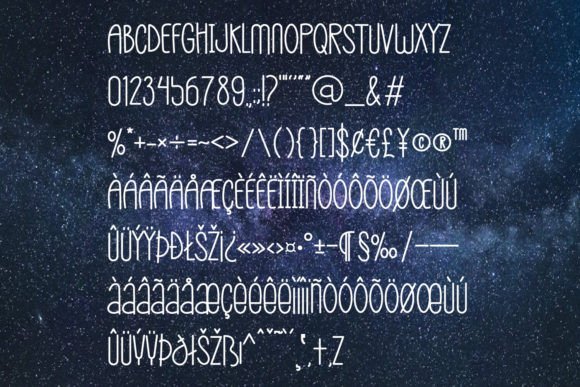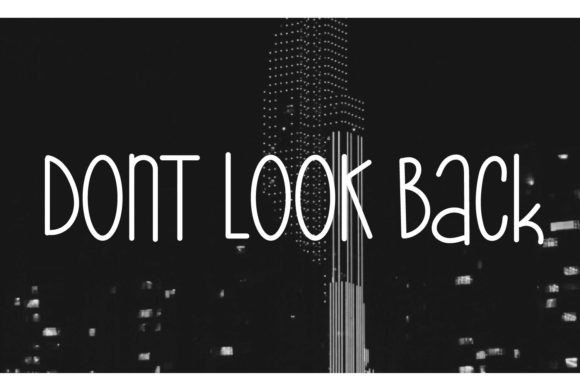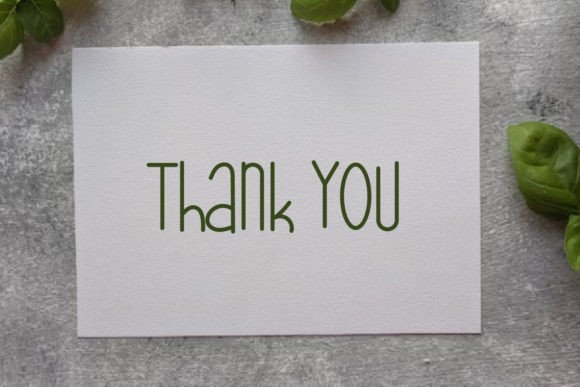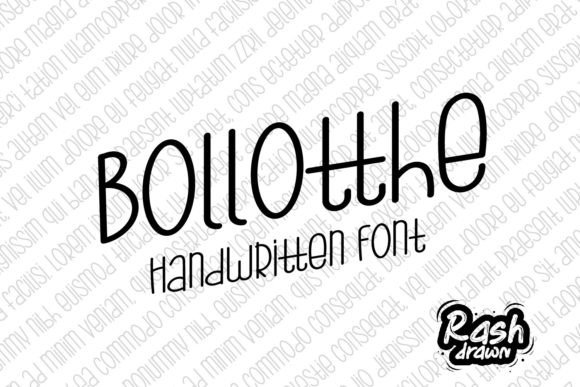
Bollotthe Font: The Ultimate Modern Sans-Serif Font for Designers and Crafters
Bollotthe font is a game-changer in the world of typography. This cool and modern sans-serif font has been gaining popularity among designers, crafters, and digital artists, and for good reason. Whether you’re working on a craft project, creating digital designs, making presentations, or designing greeting cards, Bollotthe font has the potential to become your new favorite go-to font, no matter the occasion.
What Makes Bollotthe Font So Special?
Bollotthe font boasts a unique and modern design that sets it apart from other sans-serif fonts. Its clean lines, simple shapes, and elegant curves make it a versatile font that can be used in a wide range of applications. The font’s modern aesthetic makes it perfect for designers and crafters who want to add a touch of sophistication and style to their work.
Key Features of Bollotthe Font
- Modern sans-serif design: Bollotthe font features a sleek and contemporary sans-serif design that is perfect for digital designs, presentations, and crafts.
- Clean lines and simple shapes: The font’s clean lines and simple shapes make it easy to read and versatile for use in various applications.
- Elegant curves: The font’s elegant curves add a touch of sophistication and style to any design.
- High-quality: Bollotthe font is a high-quality font that is designed to produce crisp and clear results, even at small sizes.
Uses for Bollotthe Font
Bollotthe font is an incredibly versatile font that can be used in a wide range of applications, including:
- Crafts: Use Bollotthe font to add a personal touch to your craft projects, such as scrapbooking, card making, and journaling.
- Digital design: Bollotthe font is perfect for digital designers who want to create modern and stylish graphics, social media posts, and website content.
- Presentations: Add a touch of sophistication to your presentations with Bollotthe font, making them more engaging and professional.
- Greeting cards: Use Bollotthe font to create beautiful and stylish greeting cards for special occasions.
Why Designers and Crafters Love Bollotthe Font
Bollotthe font has quickly become a favorite among designers and crafters due to its unique combination of style, versatility, and ease of use. Here are just a few reasons why:
- Easy to read: Bollotthe font is designed to be easy to read, making it perfect for body text and captions.
- Highly versatile: The font’s modern sans-serif design makes it suitable for use in a wide range of applications.
- Customizable: Bollotthe font can be easily customized to fit your design needs, including adjusting font sizes, colors, and styles.
In conclusion, Bollotthe font is a cool and modern sans-serif font that is perfect for designers, crafters, and digital artists. Its unique combination of style, versatility, and ease of use makes it an excellent addition to any design toolkit. Whether you’re working on a craft project, creating digital designs, making presentations, or designing greeting cards, Bollotthe font has the potential to become your new favorite go-to font. So why not give it a try and see the difference it can make in your designs?